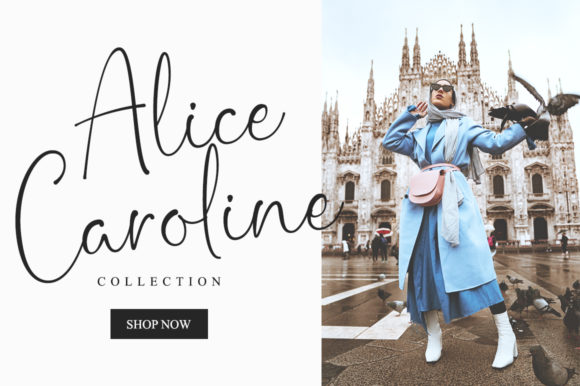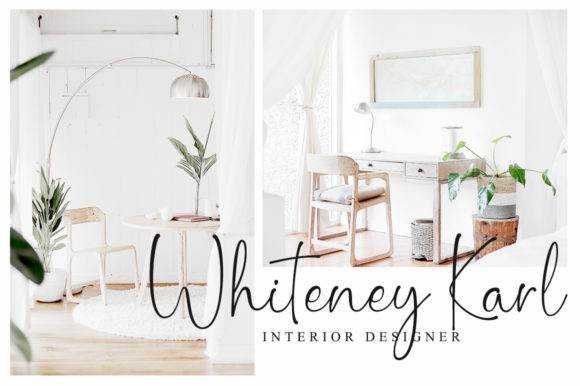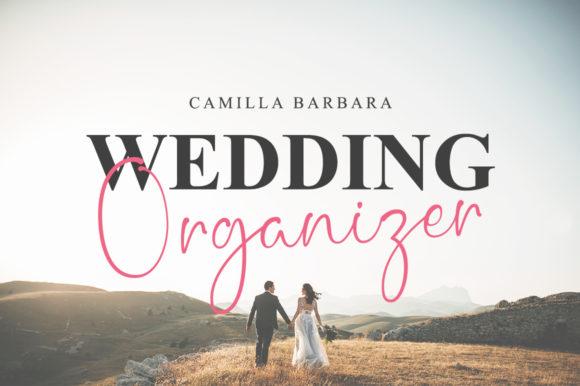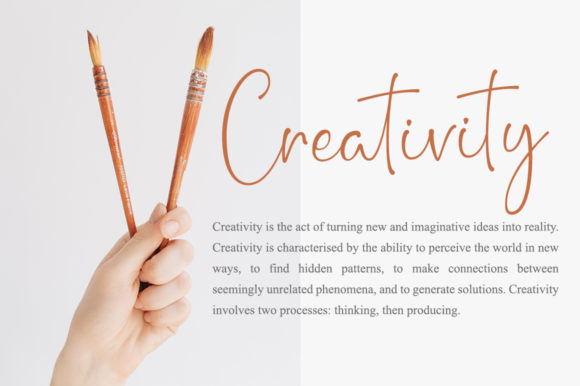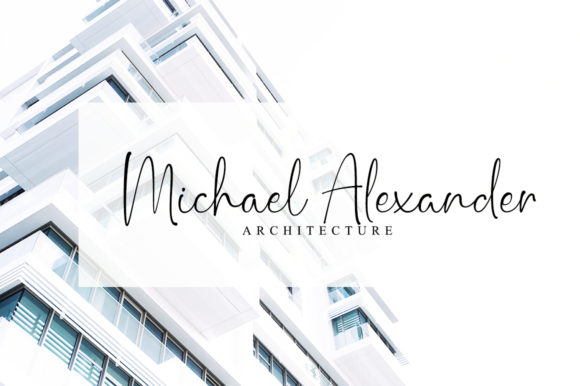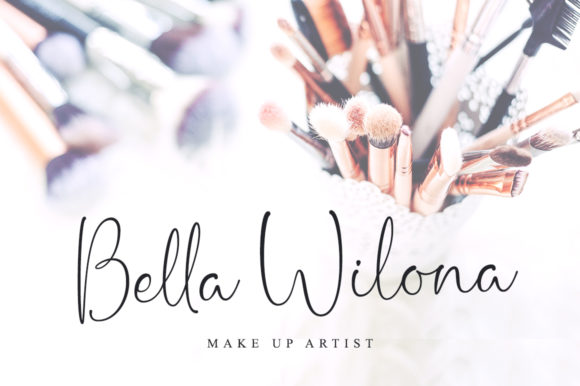
Stella Font
About Stella Font
Stella is a stunning signature font. It has a natural feel that will make your designs look amazing. Use it for logos, branding, quotes and much more!